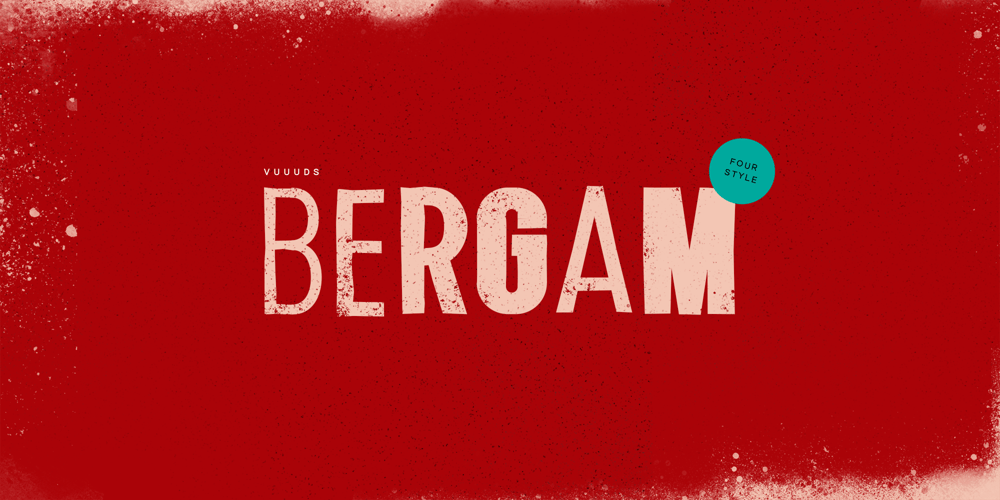
Bergam
Bergam font
Bergam Font Family was designed by Agung Syaifudin and published by vuuuds. Bergam contains 3 styles and family package options. Introducing Bergam Font!Bergam is bold font with rough shape, every single letters have been uniquely crafted.This font including beautiful alternate glyph. You can access the alternate glyph via Font Book (Mac user) or Windows Character Map (Windows user), I’ve been put the link tutorial inside the zip file.Foreign languages support: ÀÁÂÃÄÅÆÇÈÉÊËÌÍÎÏÐÑÒÓÔÕÖØÙÚÛÜÝàáâãäåæçèéêëìíîïðñòóôõöøùúûüýÿ߀£¥ŒŠŸ¢œšž©®™Thanks for looking.—instagram: vuuuds.studio